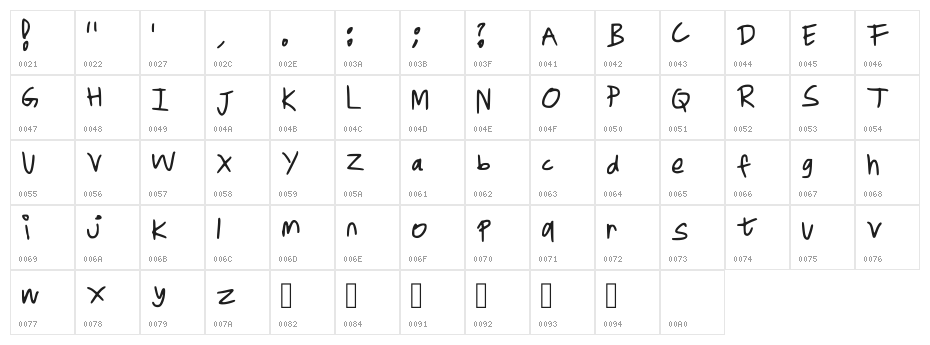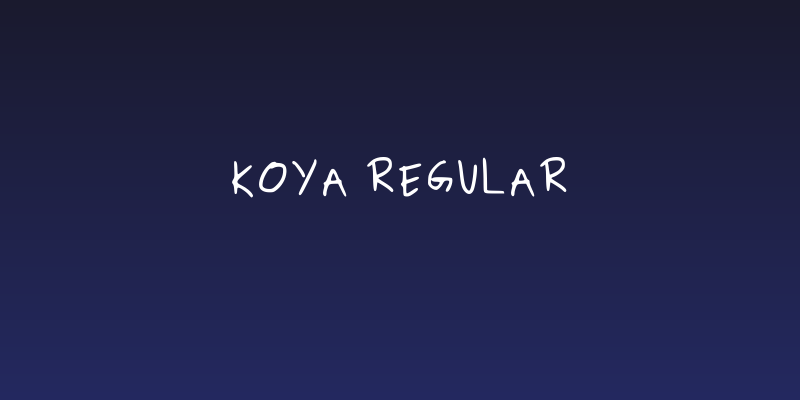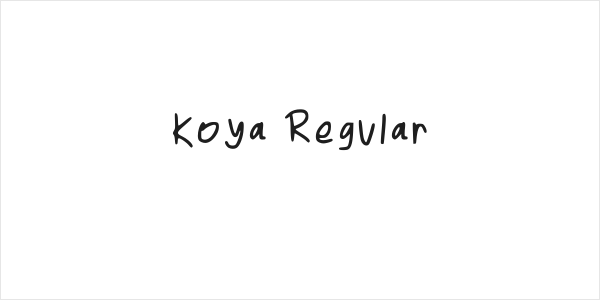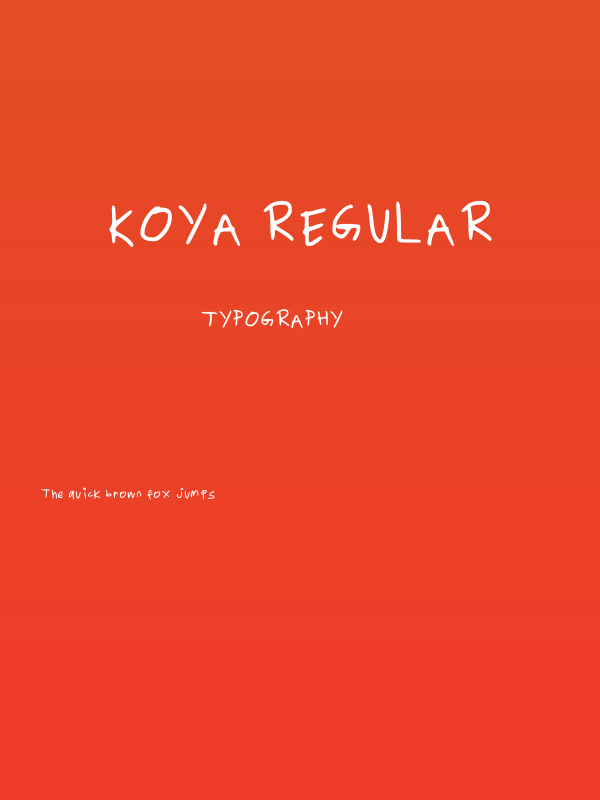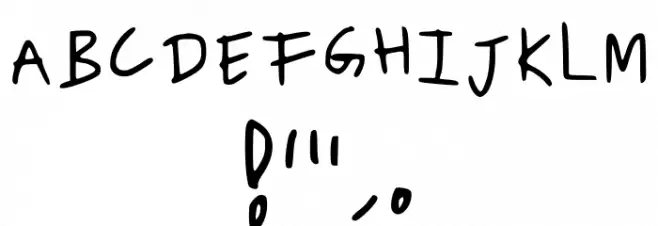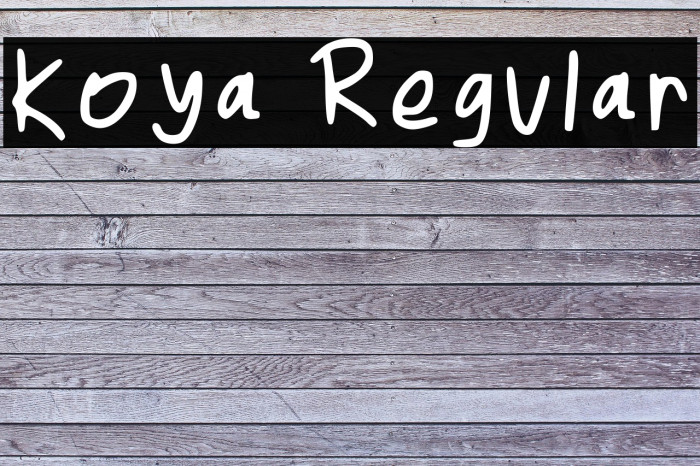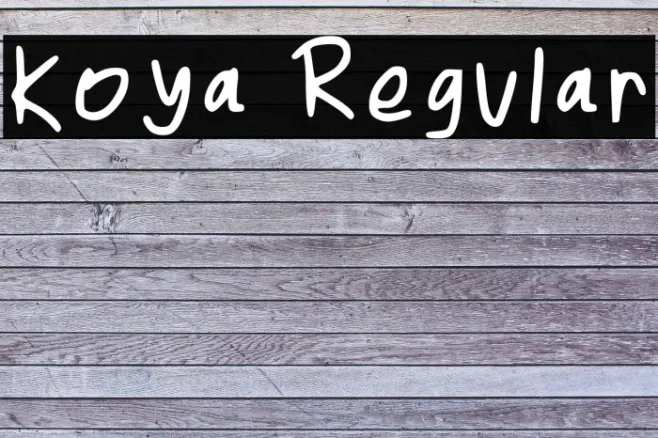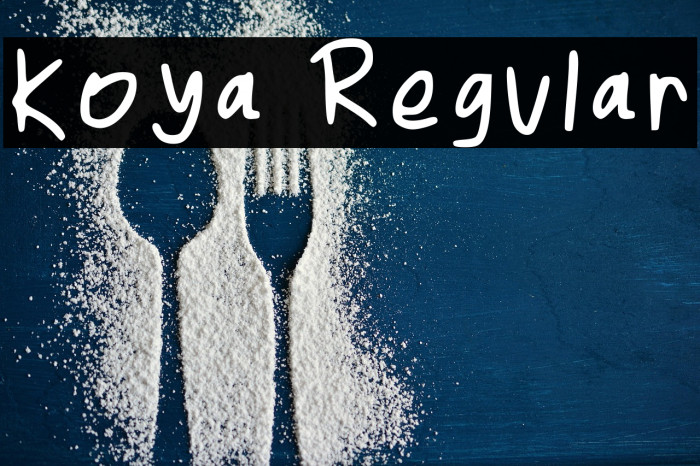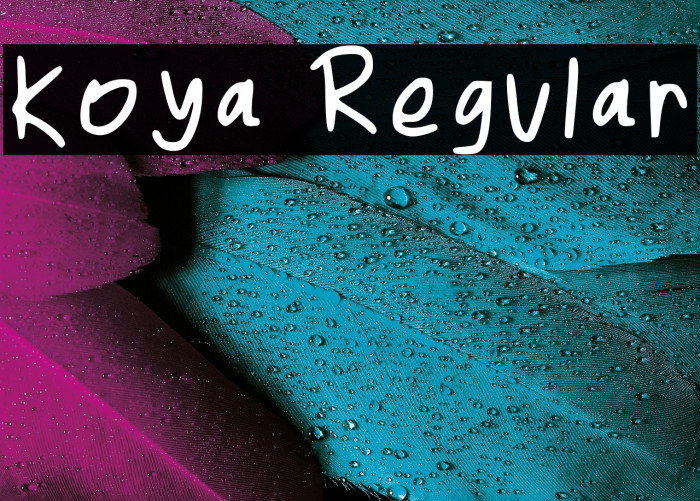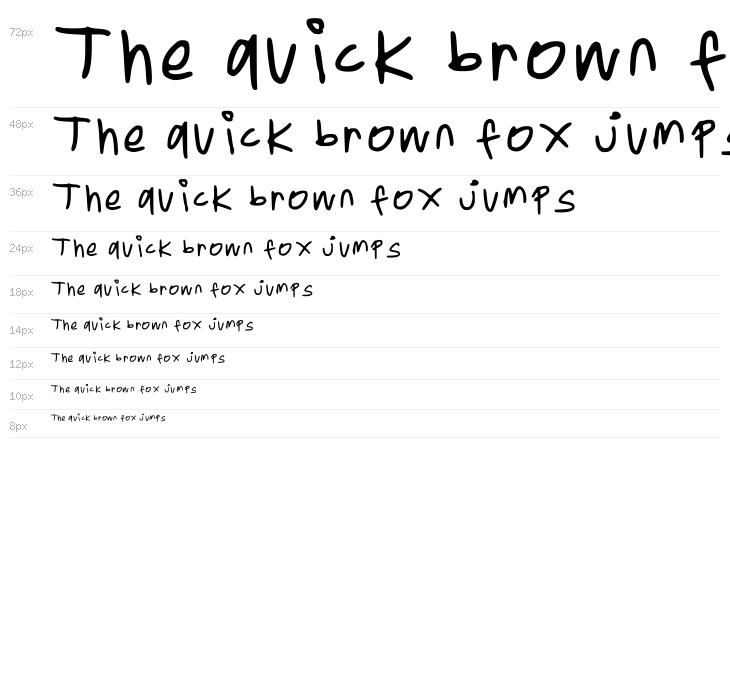
Koya Regular Font
Koya Regular Description
This font exudes a playful and casual handwritten style, characterized by its irregular strokes and slightly uneven baseline. The letters have a personal touch, resembling a natural handwriting style that is both approachable and friendly. The uppercase and lowercase letters maintain a consistent style, with rounded edges and a slight tilt that adds to the informal aesthetic. The numbers and special characters follow the same design principles, ensuring a cohesive look across all characters. This font is perfect for projects that require a personal, human touch, such as greeting cards, informal invitations, or creative branding.
| Overall Style | Casual, Playful |
| Use Case | Headlines, Informal Text, Creative Projects |
| Proposed Projects | Ideal for greeting cards, informal invitations, creative branding, and personal projects. |